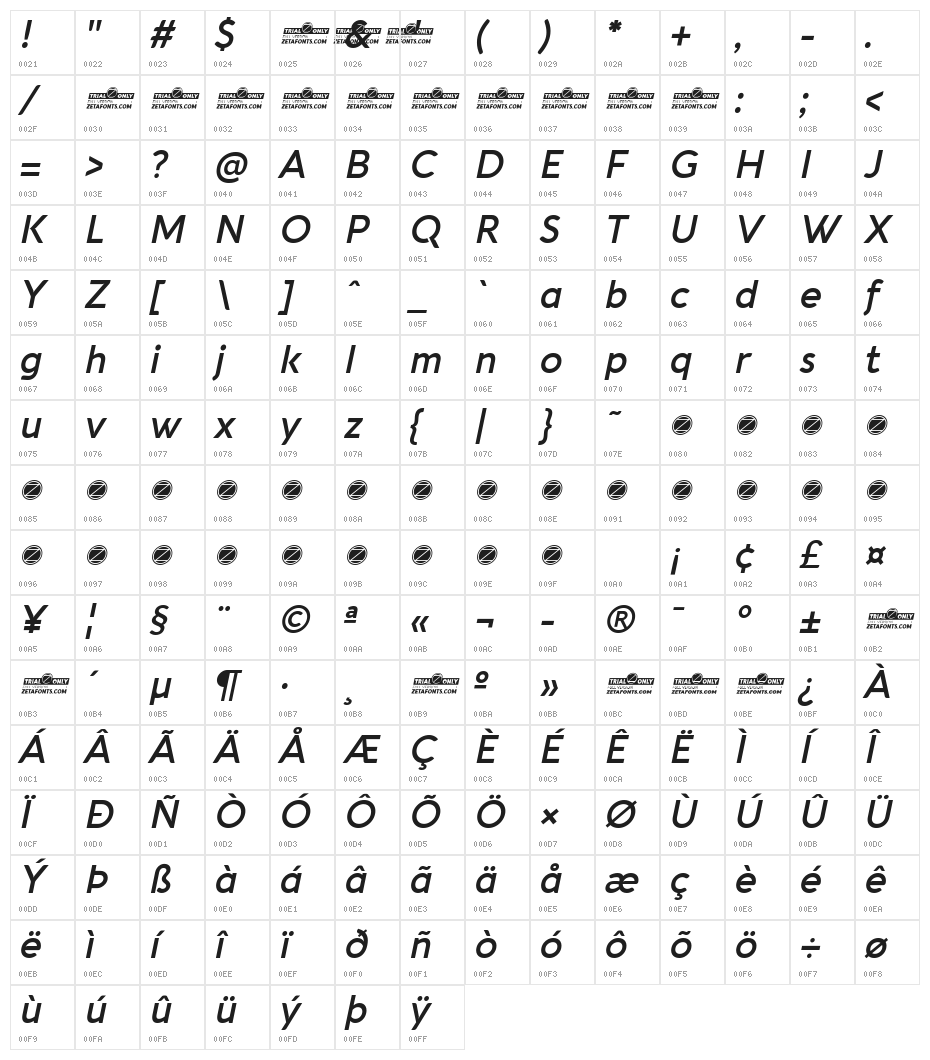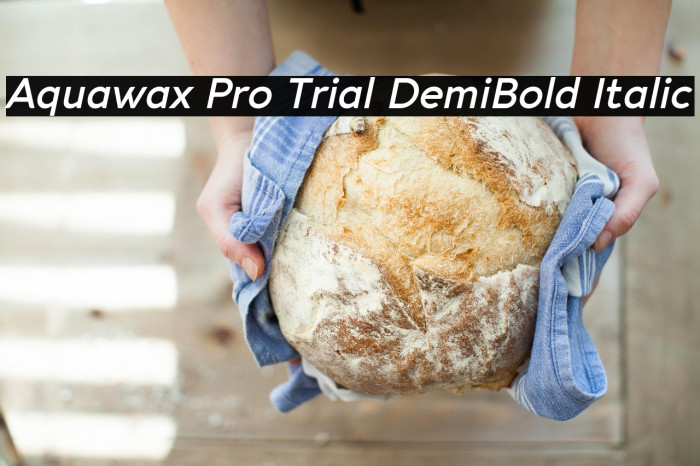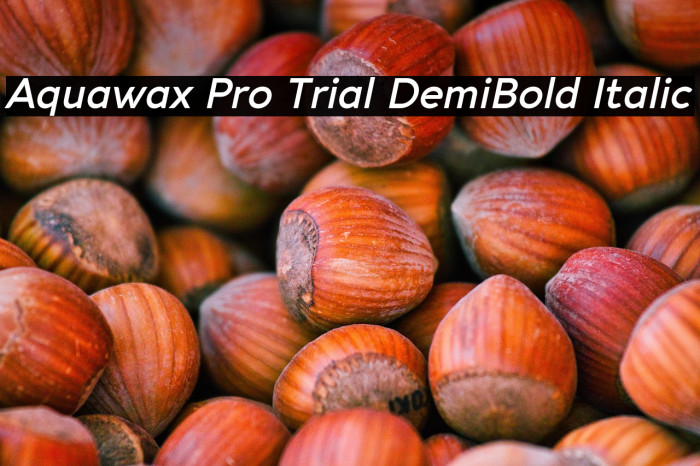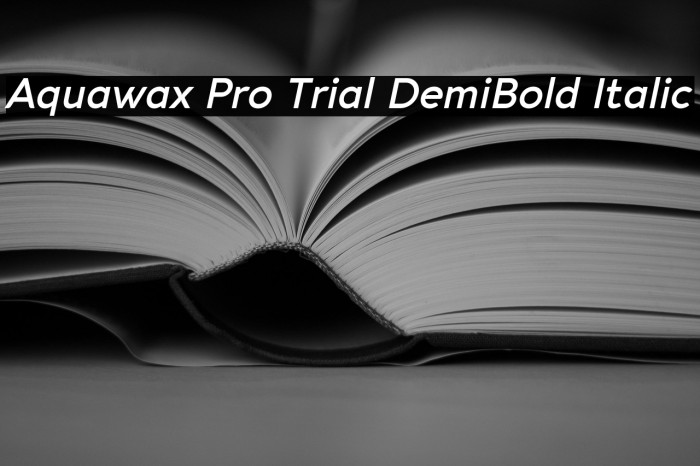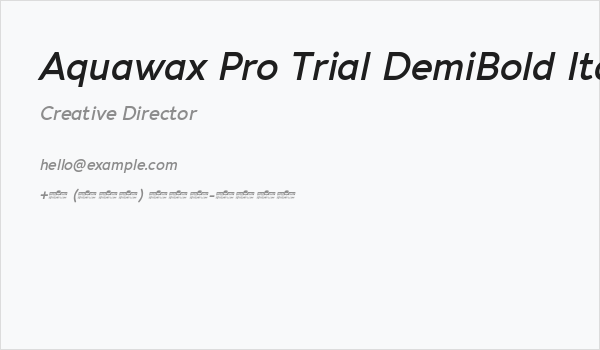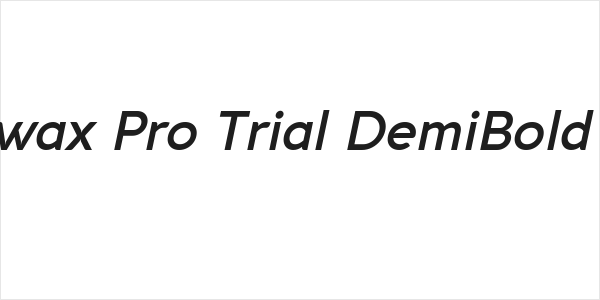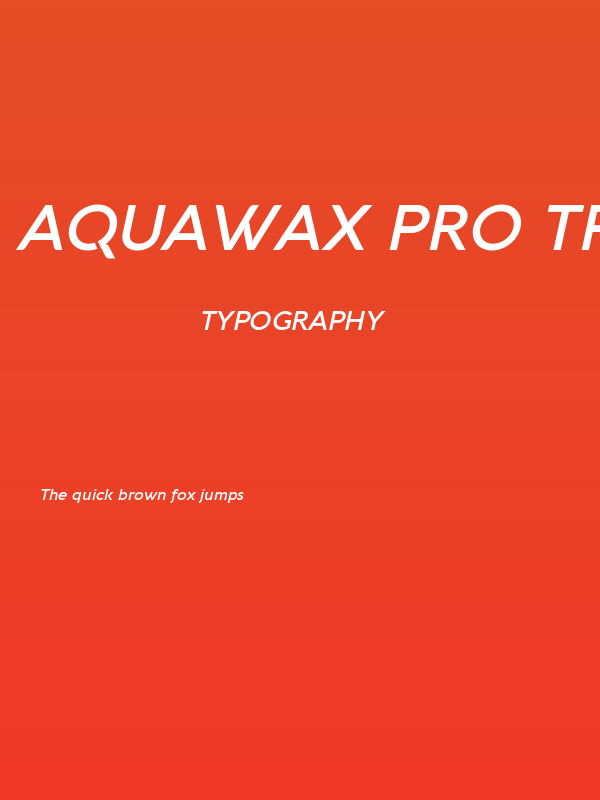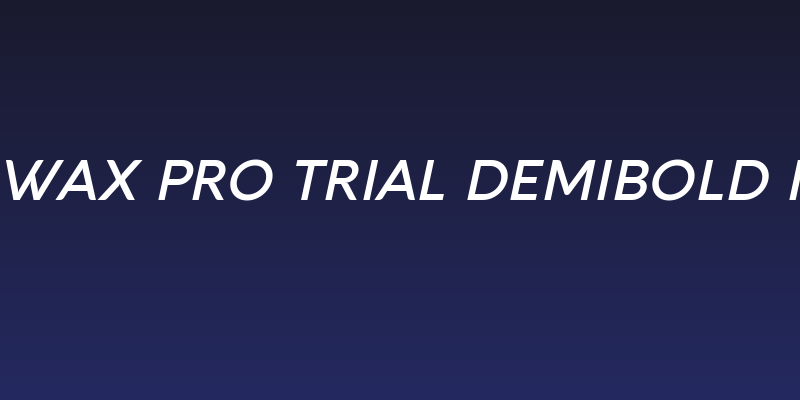
Aquawax Pro Trial DemiBold Italic Font
Aquawax Pro Trial DemiBold Italic Description
This font features a sleek, modern design with a slight italic slant, giving it a dynamic and forward-moving appearance. The characters are well-defined with smooth curves and a consistent stroke width, providing a clean and professional look. The uppercase and lowercase letters maintain a harmonious balance, while the numerals and special characters are crafted to match the overall aesthetic. This font's style is both contemporary and versatile, making it suitable for a wide range of applications.
Proposed ProjectsIdeal for branding, advertising, digital media, and editorial design projects.